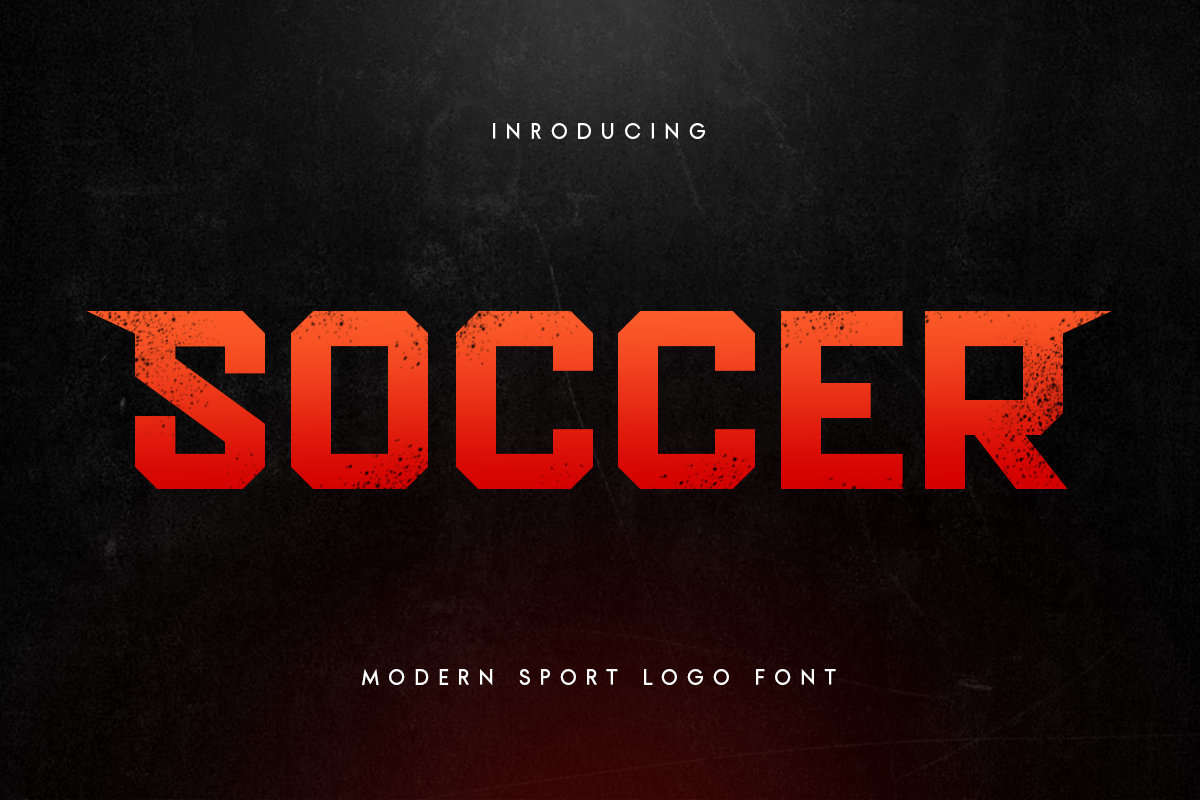
Soccer – Modern Sport Logo Font
Dominate the field with Soccer – a powerful modern sport logo font built for bold action and standout typography. This dynamic typeface was crafted specifically for logos, titles, and impactful headlines that demand attention. Perfect for sport, technology, action, and fighting themes, Soccer delivers the bold action style and modern aesthetic your projects need to showcase your main vision. Soccer Modern Sport Logo font includes: Creative characters designed for optimal results 4 file formats: ...